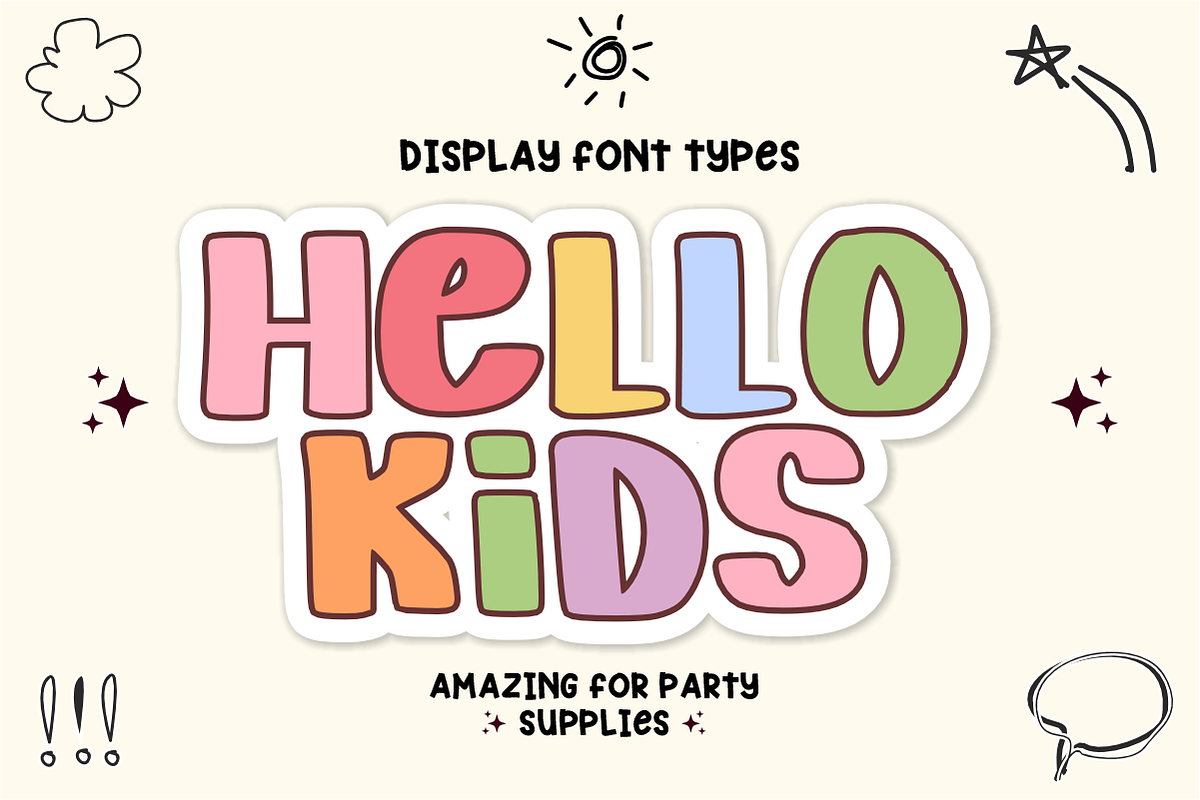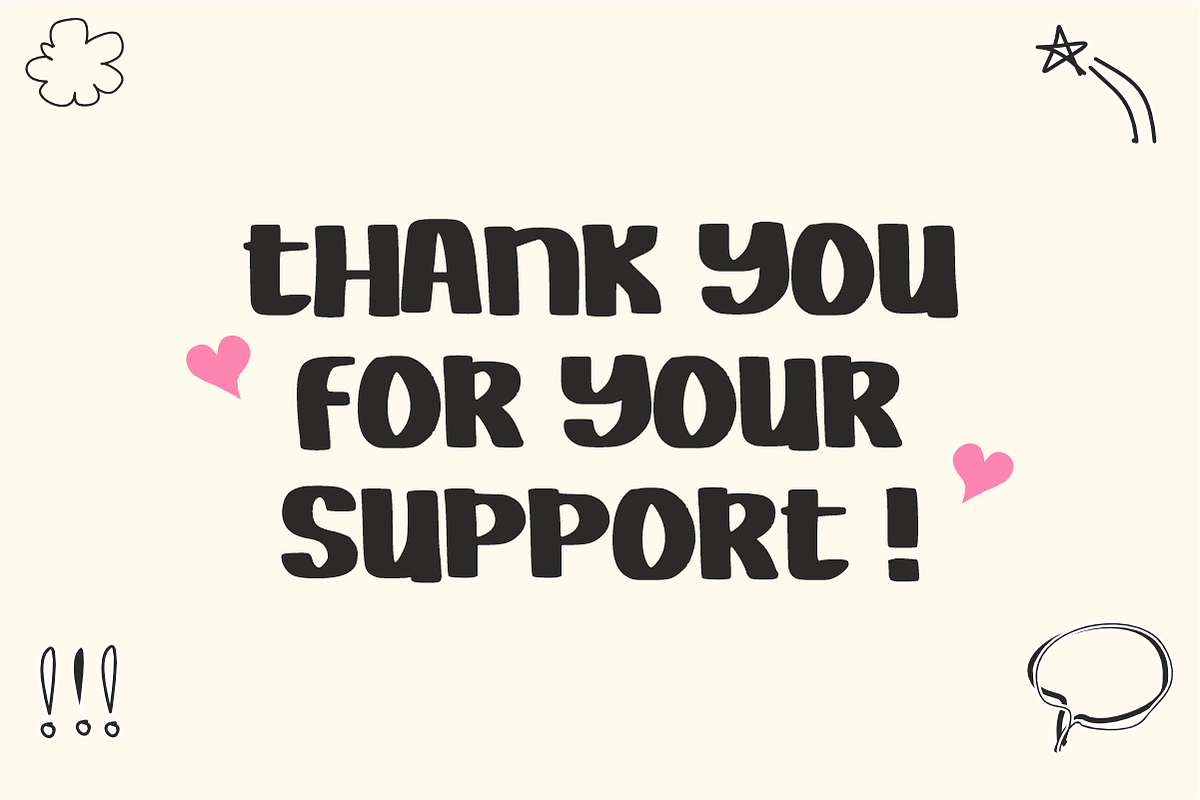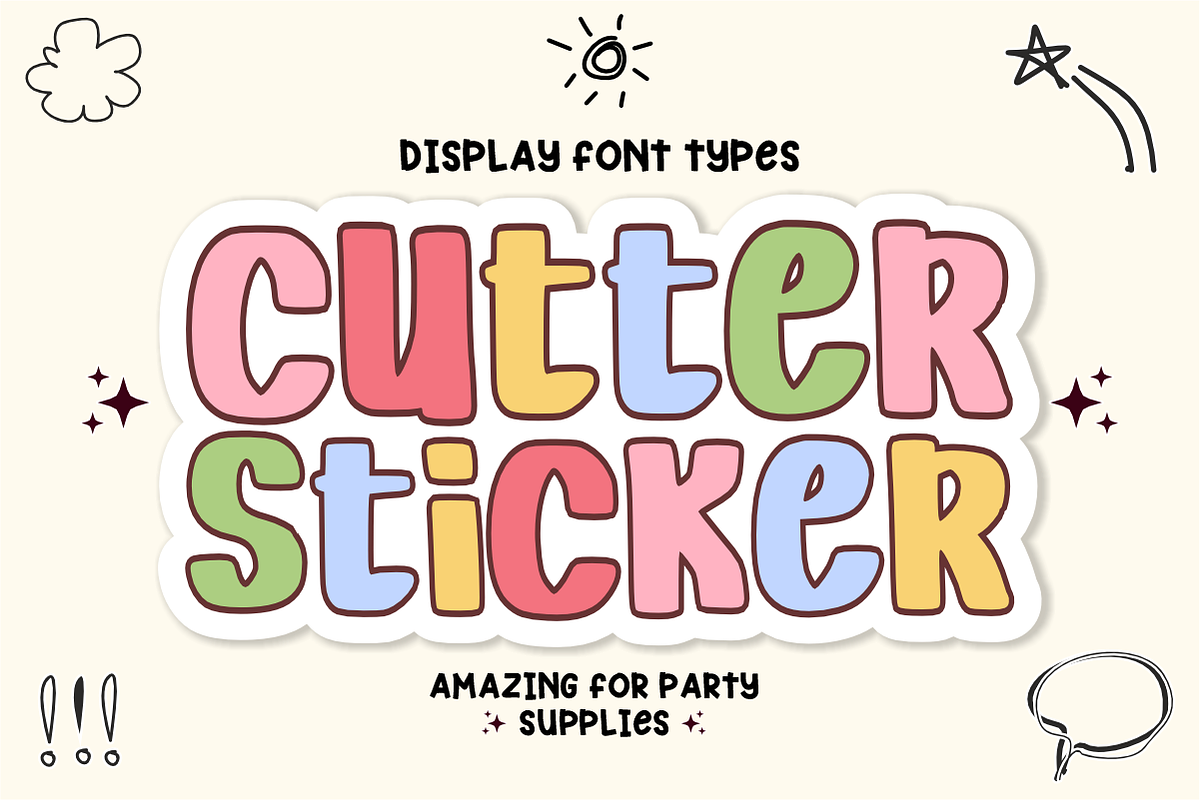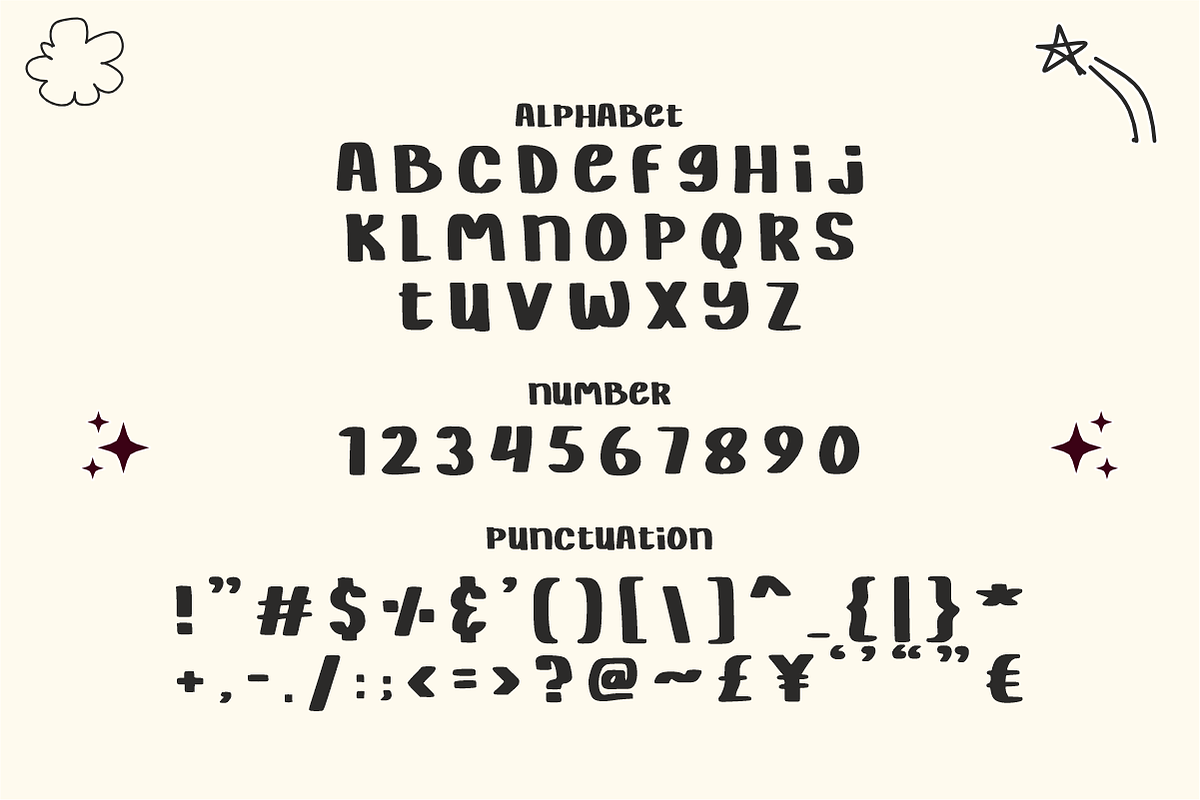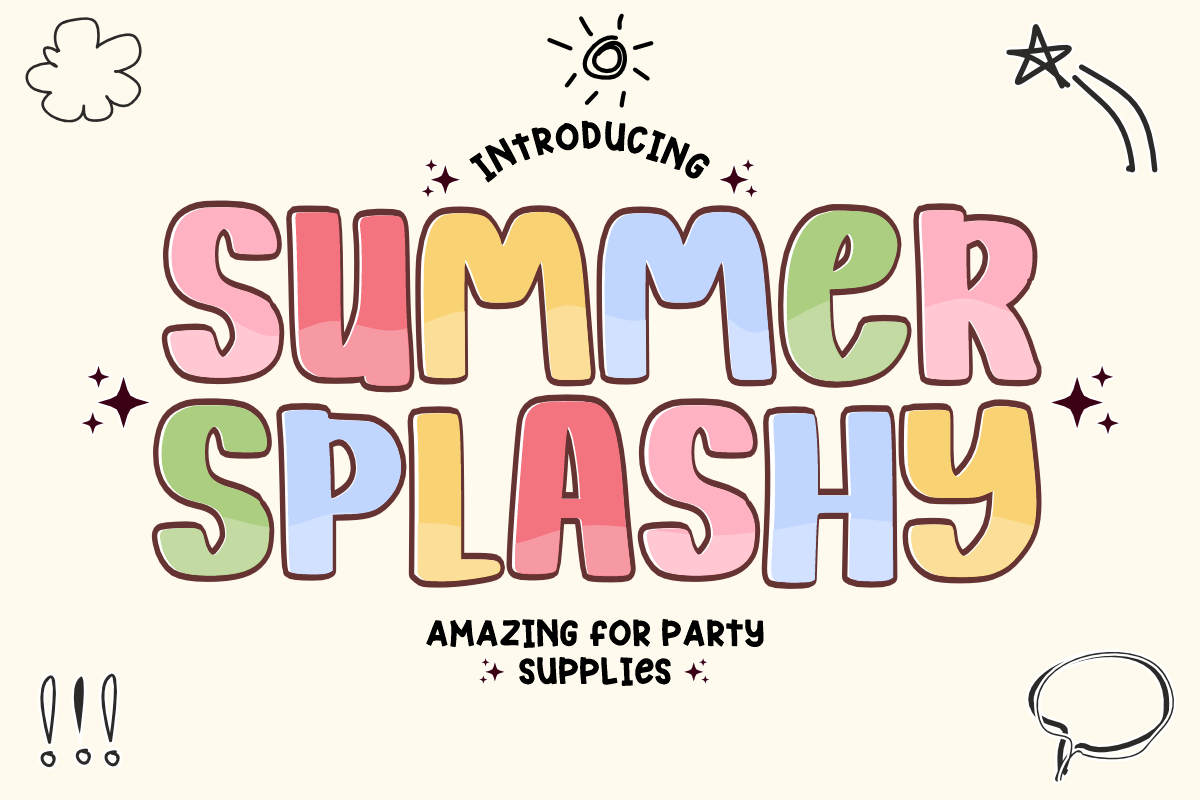
Summer Splashy - Bubbly Display Font
Summer Splashy - Bubbly Playful Display Font
Dive into the fun with Summer Splashy! This ultra-playful, hand-drawn font is all about high energy and sunshine vibes. With its bubbly, thick characters and friendly appeal, it’s designed to make your headlines stand out with a cheerful, retro-modern twist.
Whether you're designing for kids, creating vibrant party supplies, or crafting trendy merchandise, Summer Splashy brings a splash of joy to every canvas. It's bold, easy to read, and perfectly optimized for both digital and print projects.
All-Caps Character Set (Bold and bubbly uppercase letters)
Numbers & Basic Punctuation (Essential symbols for complete designs)
Party Supplies & Birthday Stationery 🎈
Cricut & DIY Crafting Projects ✂️
Trendy Sticker & Patch Design 🌈
Social Media Graphics & Branding 📱
Summer-Themed Apparel & Merch 👕